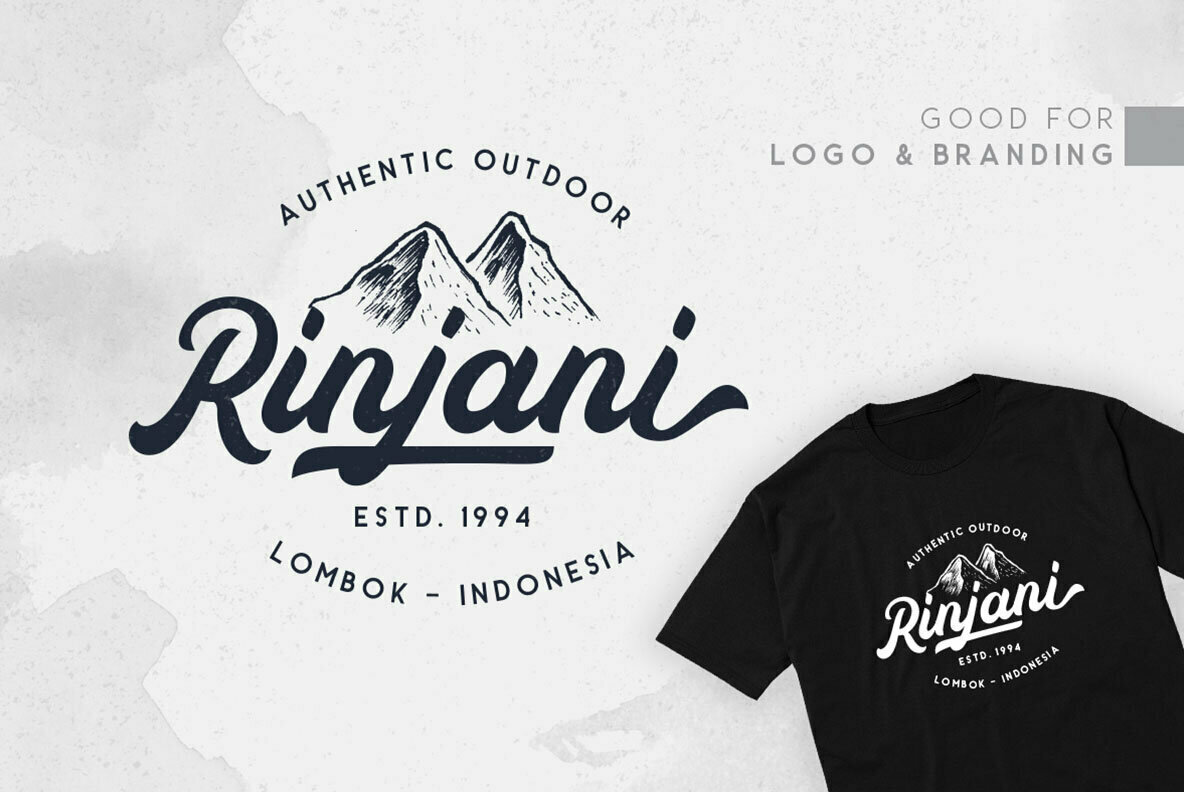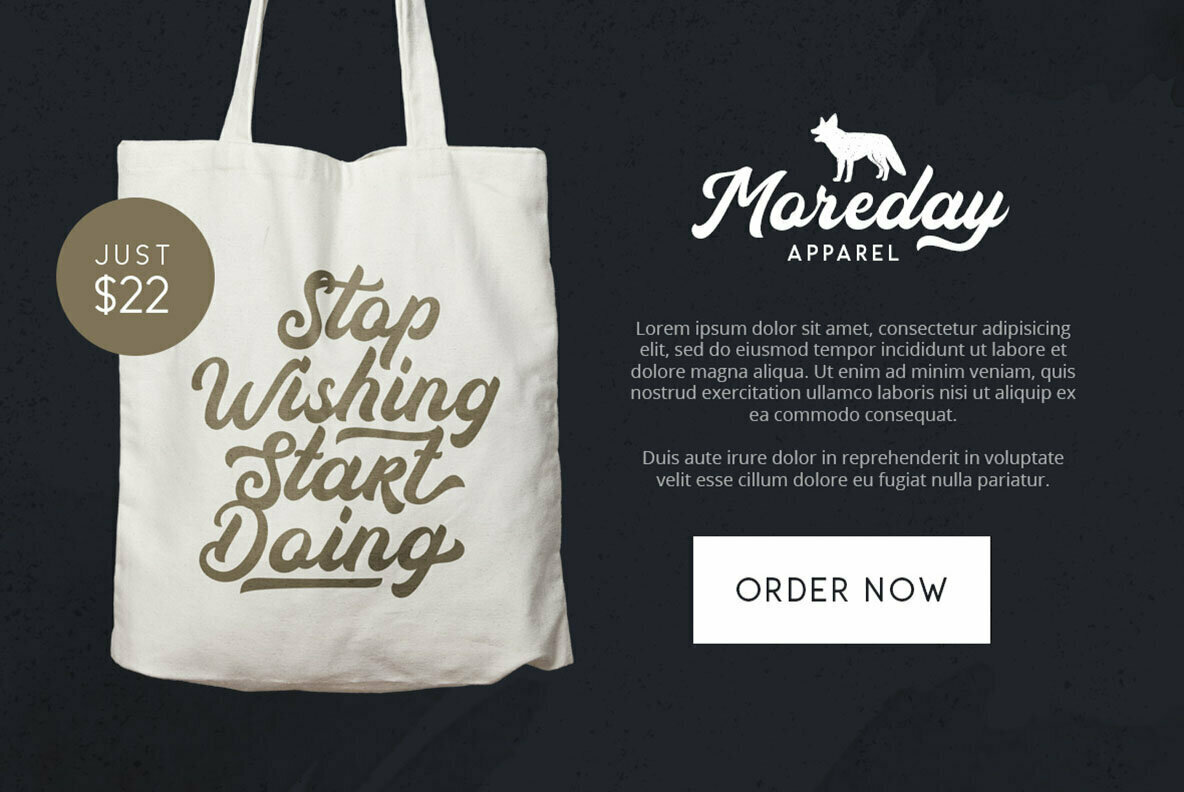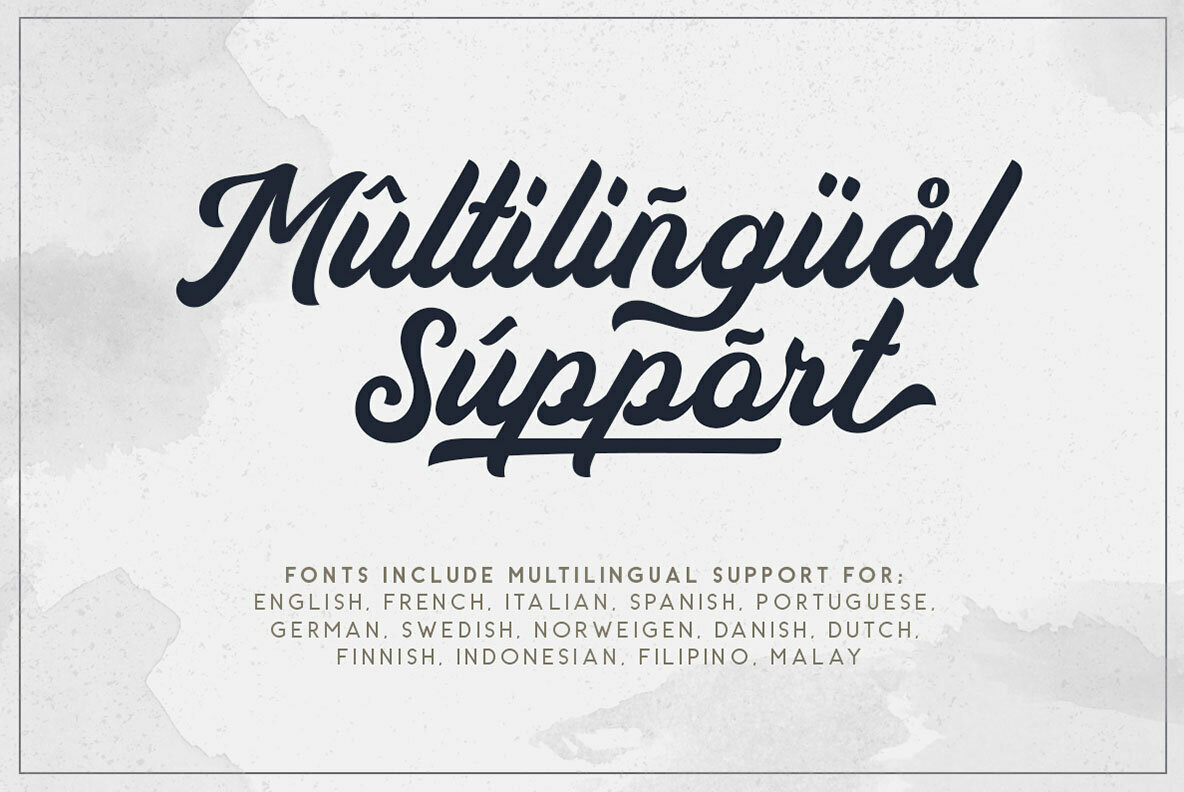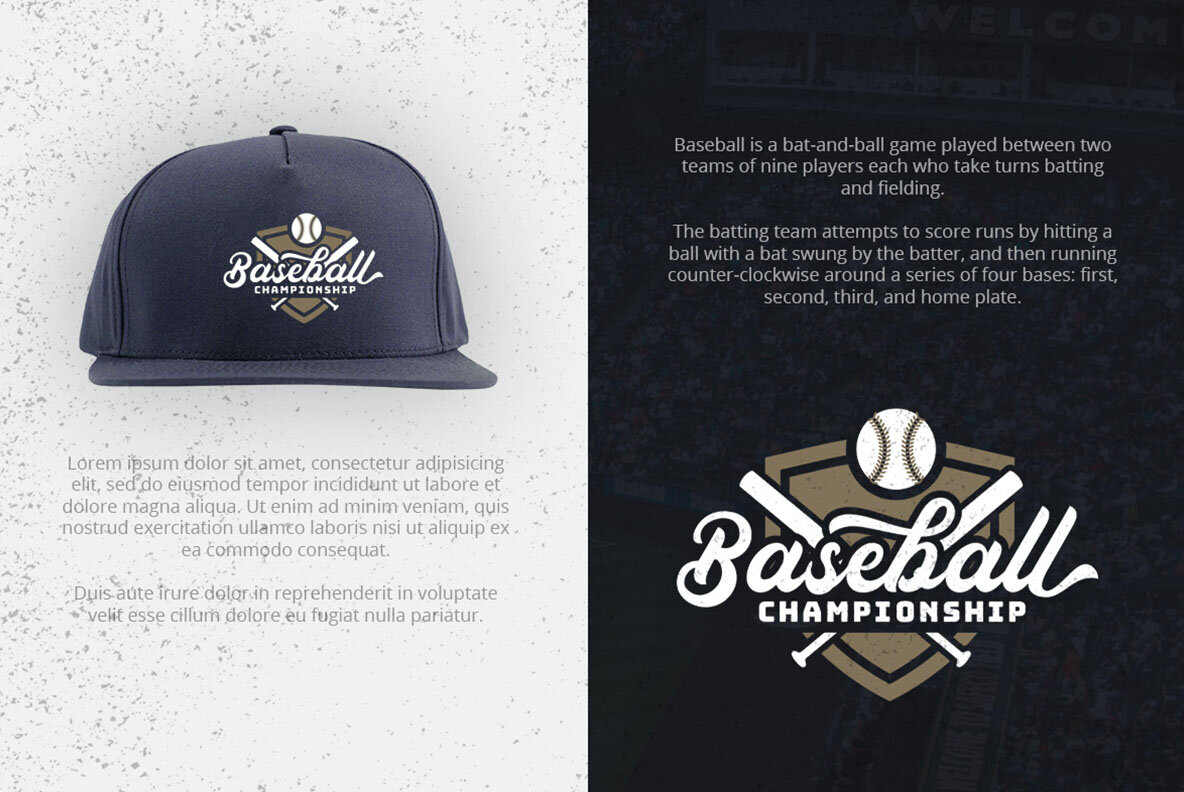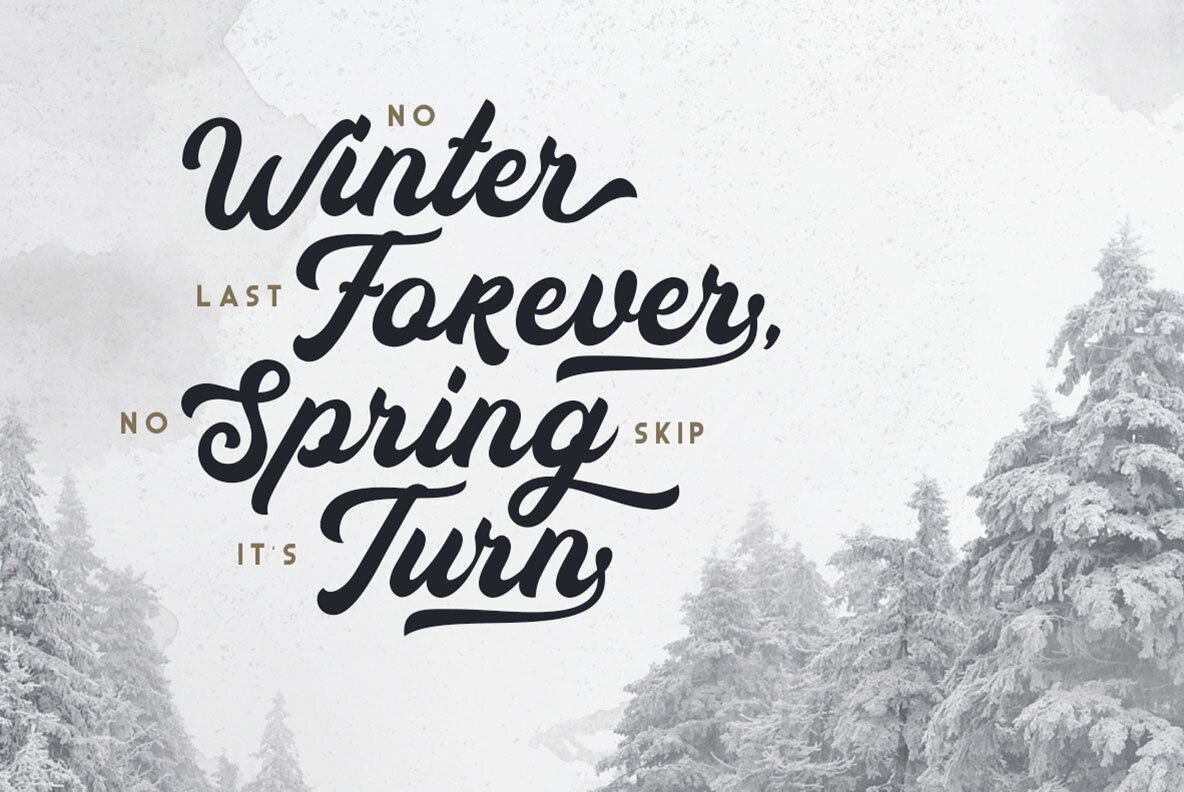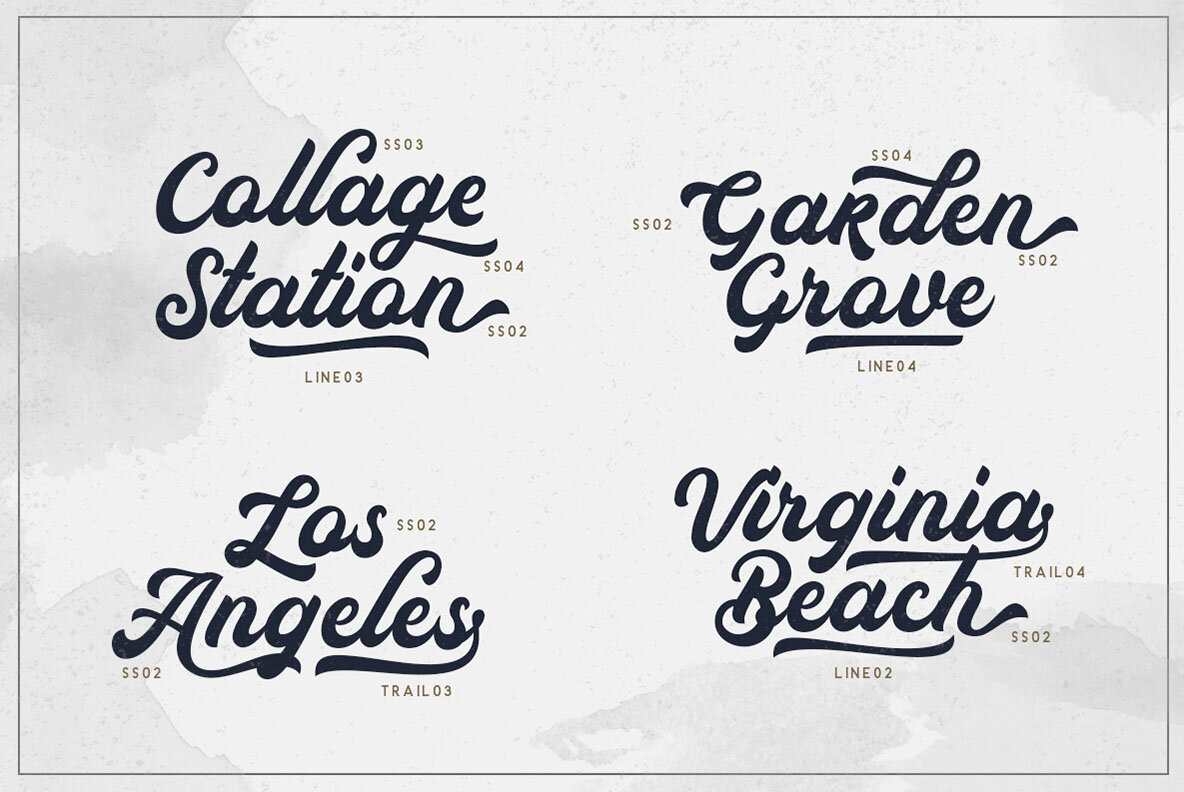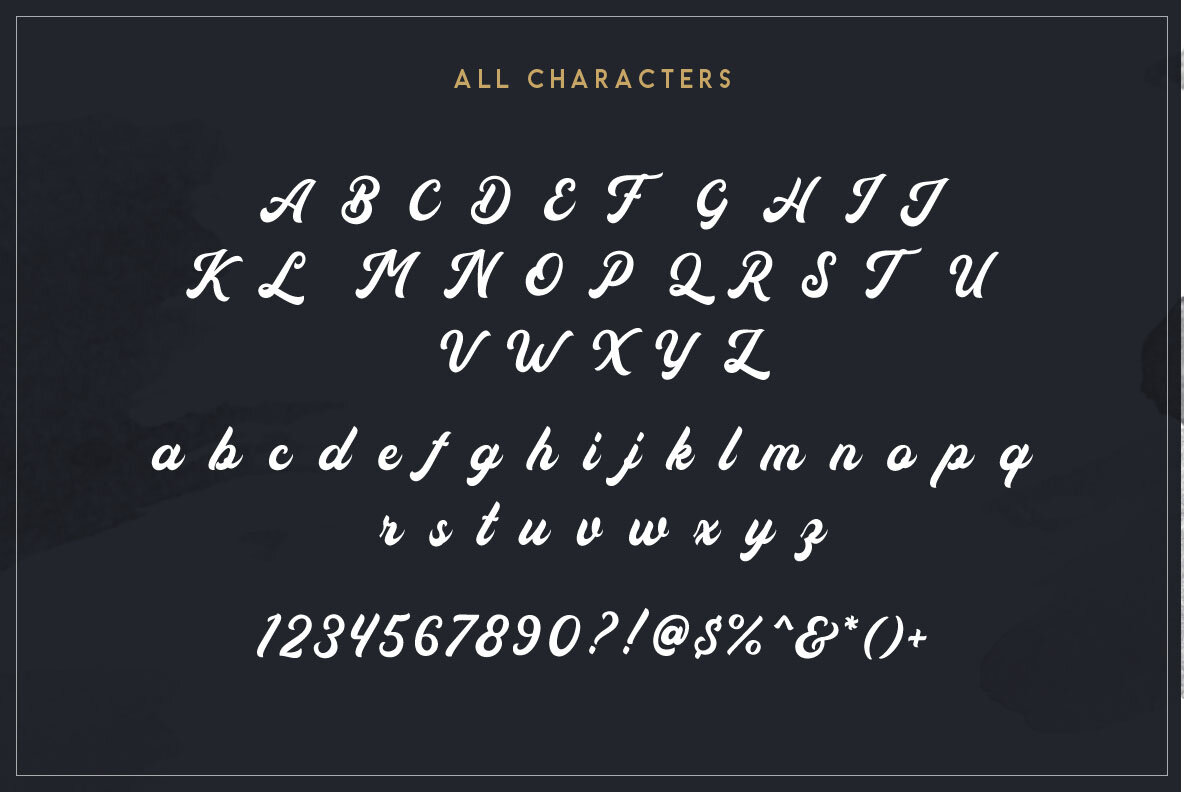
Auckland Script Font
Auckland Script
Auckland is a bold script that contain Uppercase, Lowercase, Numerals, Accents, Punctuations, 5 set alternates, Ligatures, Swash, and also Underline. You can use to make a logo for branding, best for apparel design, and quotes. This font also already PUA Encoded.
- Opentype feature, including 5 Set Alternates, Ligatures, End Swash, and Underlines.